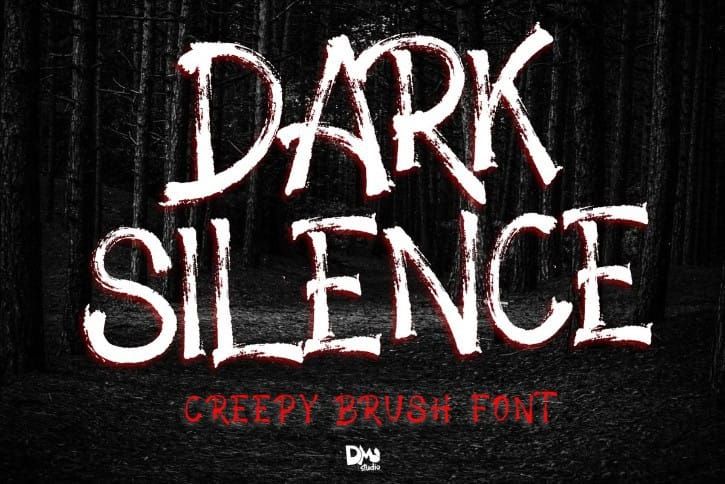
Dark Silence – Creepy Brush Font
Dark Silence is a creepy brush font with rough texture. Make your design more frightening!
Features :
– All in Caps
– Numeric
– Symbols